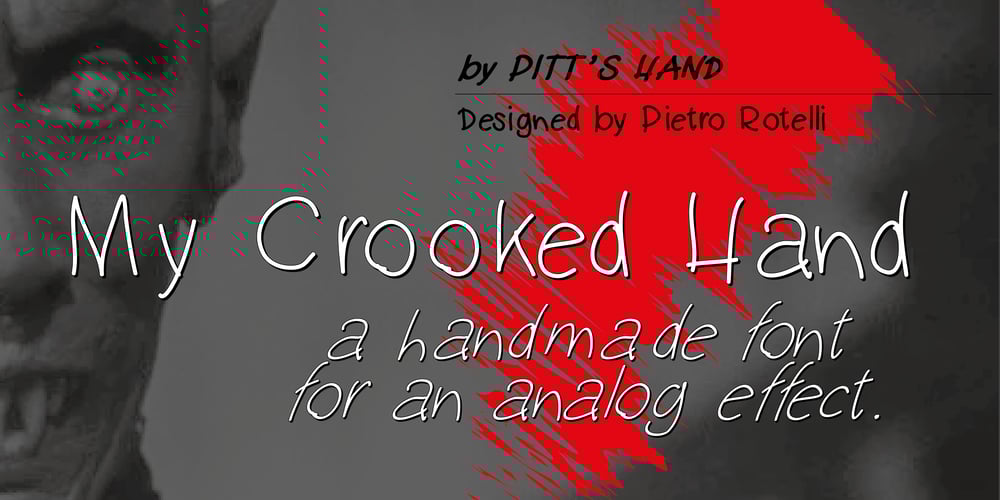
My Crooked Hand Font Family was designed by Pietro Rotelli and published by Pitt’s Hand. My Crooked Hand contains 6 styles and family package options. A useful font to have a handcrafted note effect “on the fridge”. It can be used both in a graphic context and to letter a comic or create a slightly informal cover graphic.Handcrafted and then digitally converted and expanded.